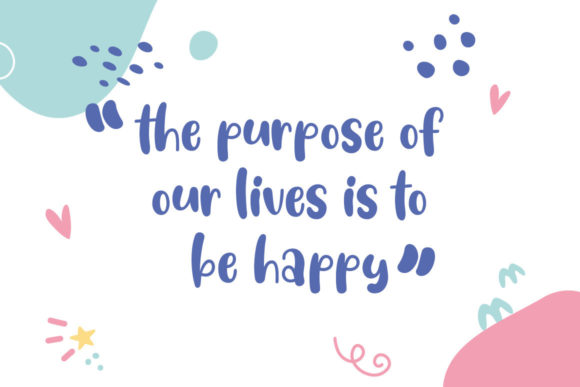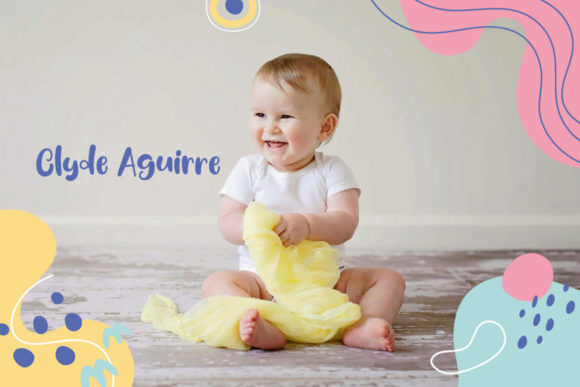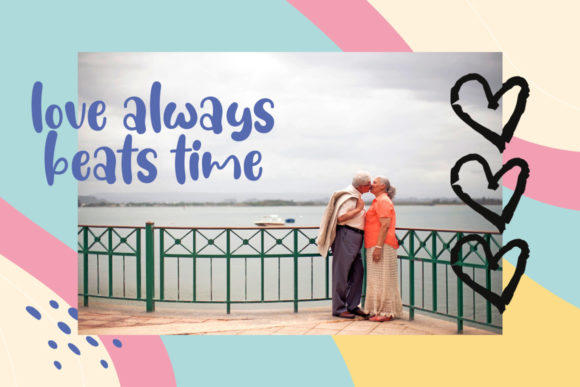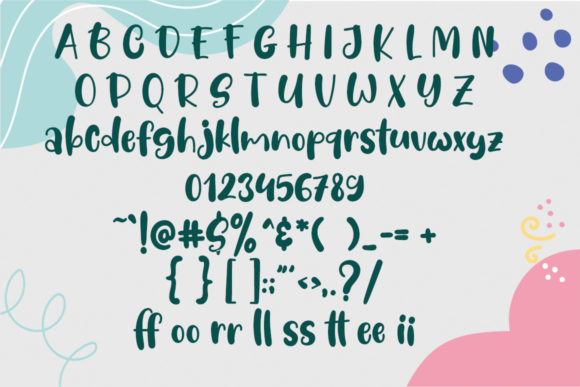
The Moment When Typography Makes All the Difference
Have you ever stared at a blank canvas, eager to bring your creative vision to life, only to be stopped in your tracks by the perfect font? For designers, the right typography can be the game-changer that elevates a design from ordinary to extraordinary. It’s that moment when every detail falls into place, and the entire project takes off.
That’s where the Bubble Time Font comes in – a stunning display font designed to make your designs stand out from the crowd. With its beautiful, neat characters, this font is perfect for a wide range of projects, from wall displays and wedding invitations to social media logos and product packaging.
What makes the Bubble Time Font truly valuable is its PUA encoding, which allows designers to access all the amazing glyphs and ligatures with ease. Whether you’re a seasoned pro or just starting out, this font is sure to be a valuable addition to your design toolkit.
Bubble Time Font Key Features
- Font Family: Bubble Time Font is a unique, hand-drawn font designed for fun and playful applications.
- Font Size: The font is designed to be scalable, allowing for use in a range of sizes, from small captions to large headlines.
- Resolution: Optimized for high-resolution displays, ensuring clear and crisp text at various screen sizes and resolutions.
- Unique Characteristics: The font features a distinctive, bubbly design with irregular shapes and varying line widths, adding a touch of whimsy and personality to text.
Bubble Time Font Review
Overall, I’m quite impressed with the Bubble Time Font, but as with any font, it’s not perfect. Let’s start with the good stuff!
✨ The font’s playful, whimsical vibe is infectious. It’s perfect for creating a fun, carefree atmosphere in branding, advertising, or even children’s content. The bubbly, rounded shapes are a joy to look at, and the font’s versatility makes it suitable for a wide range of applications.
✨ The font’s weight and line spacing are well-balanced, making it easy to read, even at smaller sizes. This is a crucial aspect of any font, and Bubble Time delivers.
⚠️ One area where the font falls short is in its lack of sophistication. While it’s great for playful content, it may not be the best choice for more formal or professional projects. Additionally, the font’s bold weight can sometimes feel a bit too thick, overpowering the text.
⚠️ Another limitation is the font’s limited language support. While it covers the basics, it may not be suitable for languages that require more complex typography.
⚠️ Finally, the font’s kerning could be improved, especially for certain letter combinations.
- Perfect for playful, whimsical content
- Well-balanced weight and line spacing
- Highly versatile
The Bubble Time Font is ideal for creating playful, whimsical designs. Use it for:
– Children’s party invitations
– Illustrations and cartoons
– Branding and logos with a playful twist
– Educational materials for kids